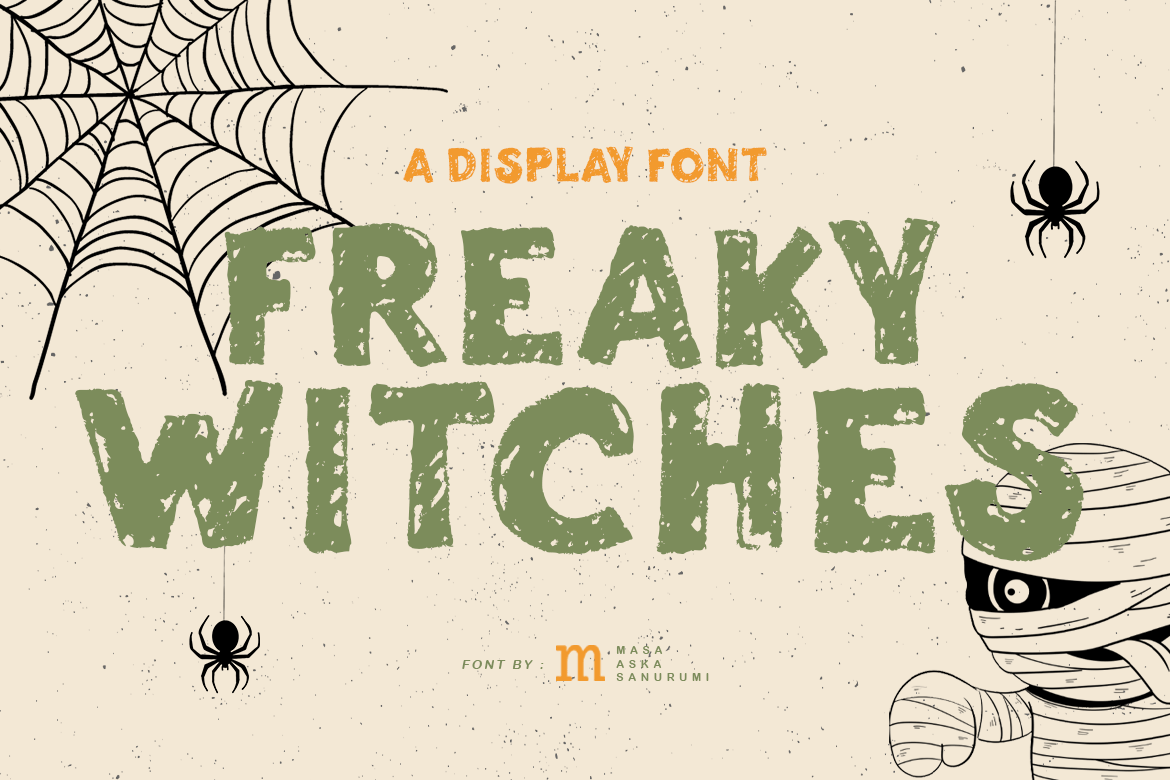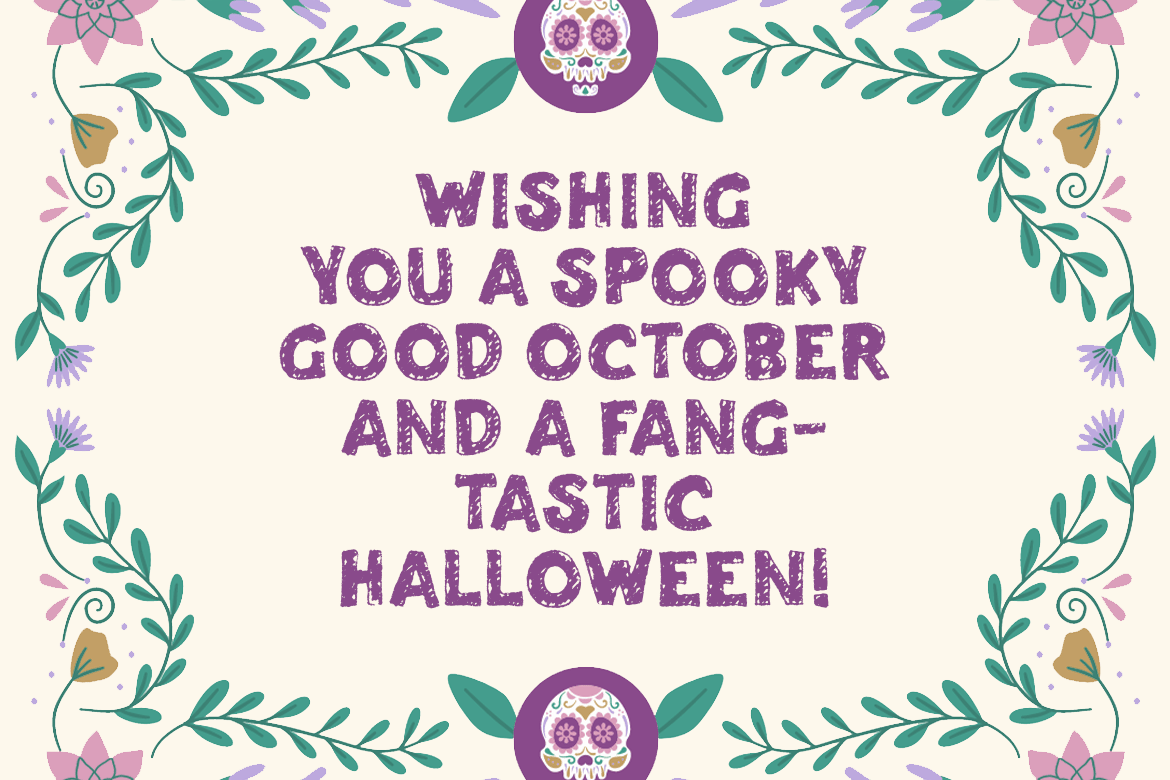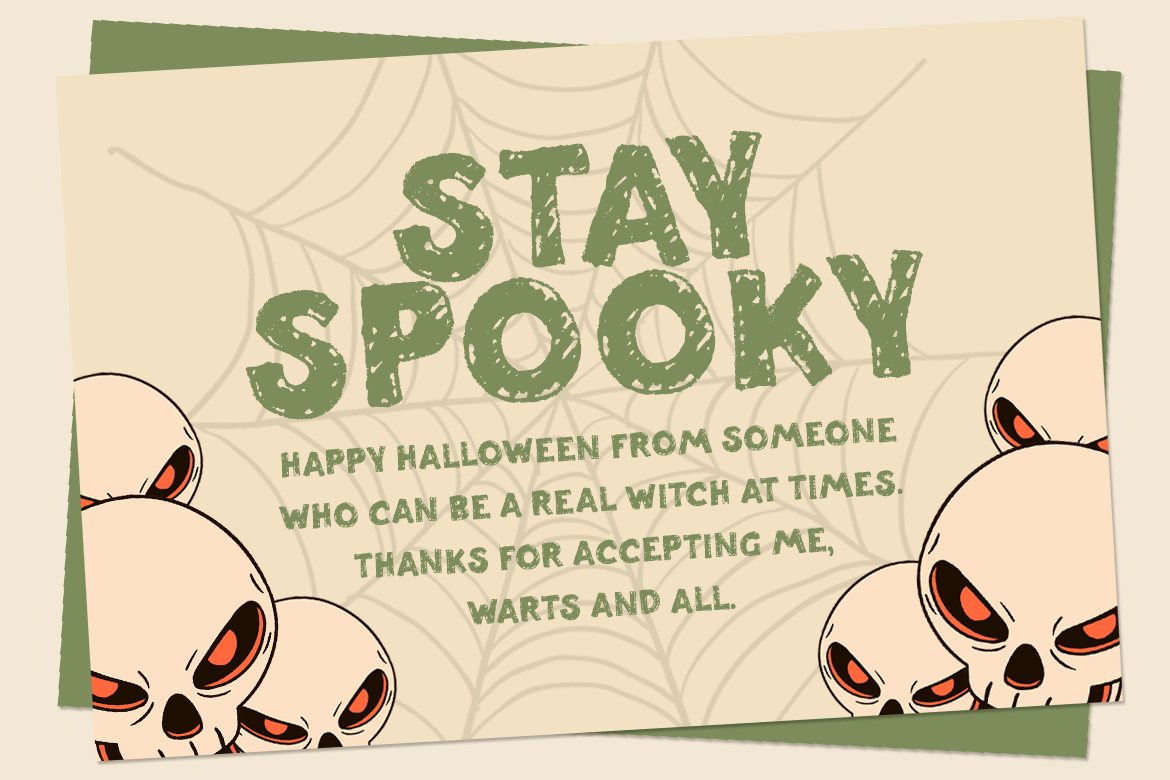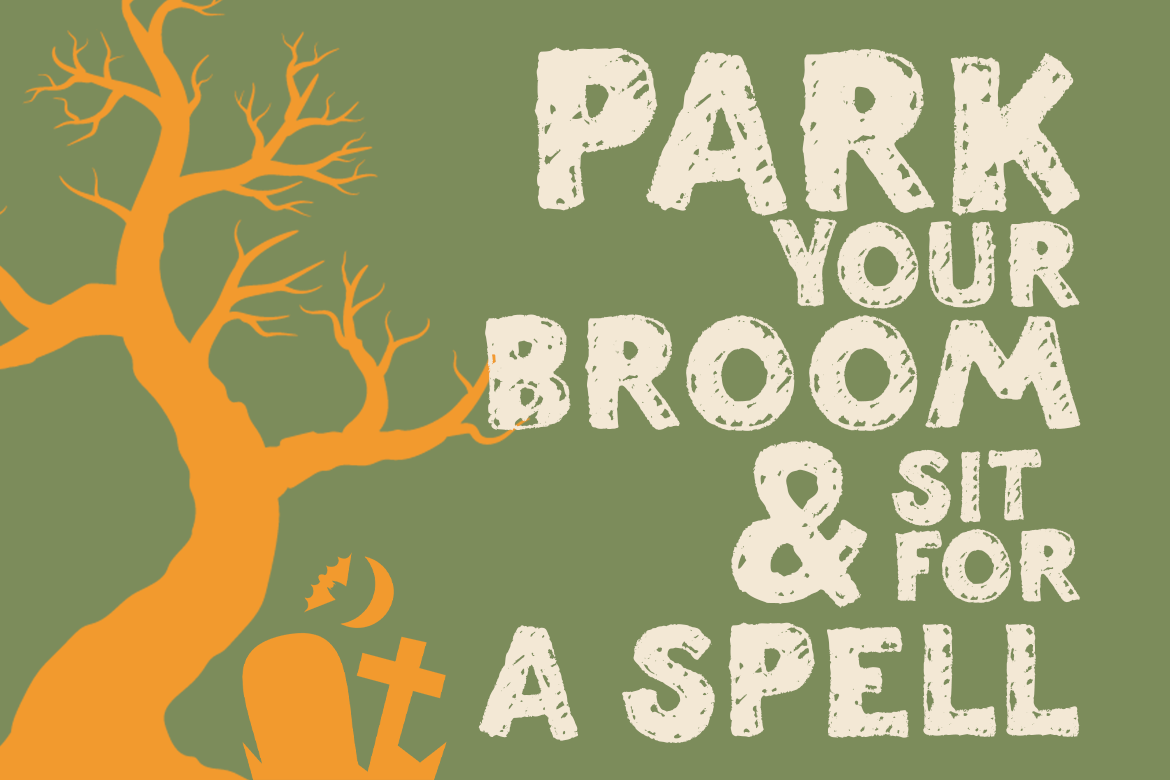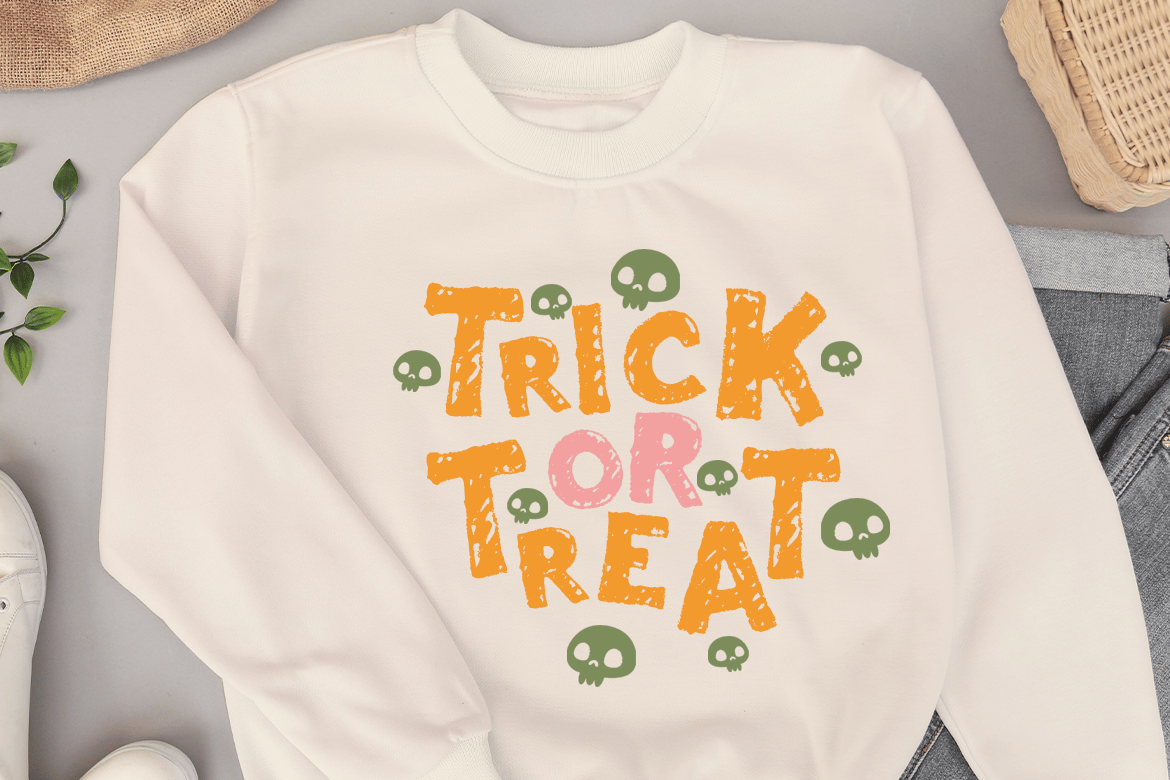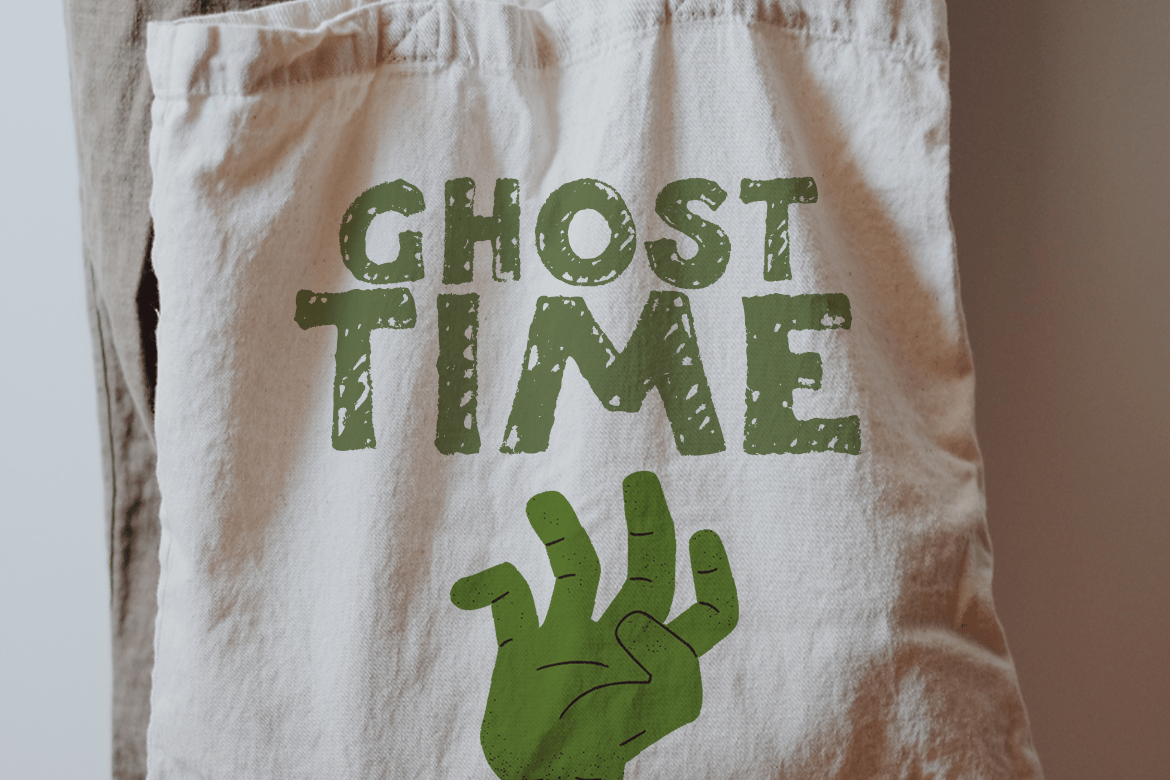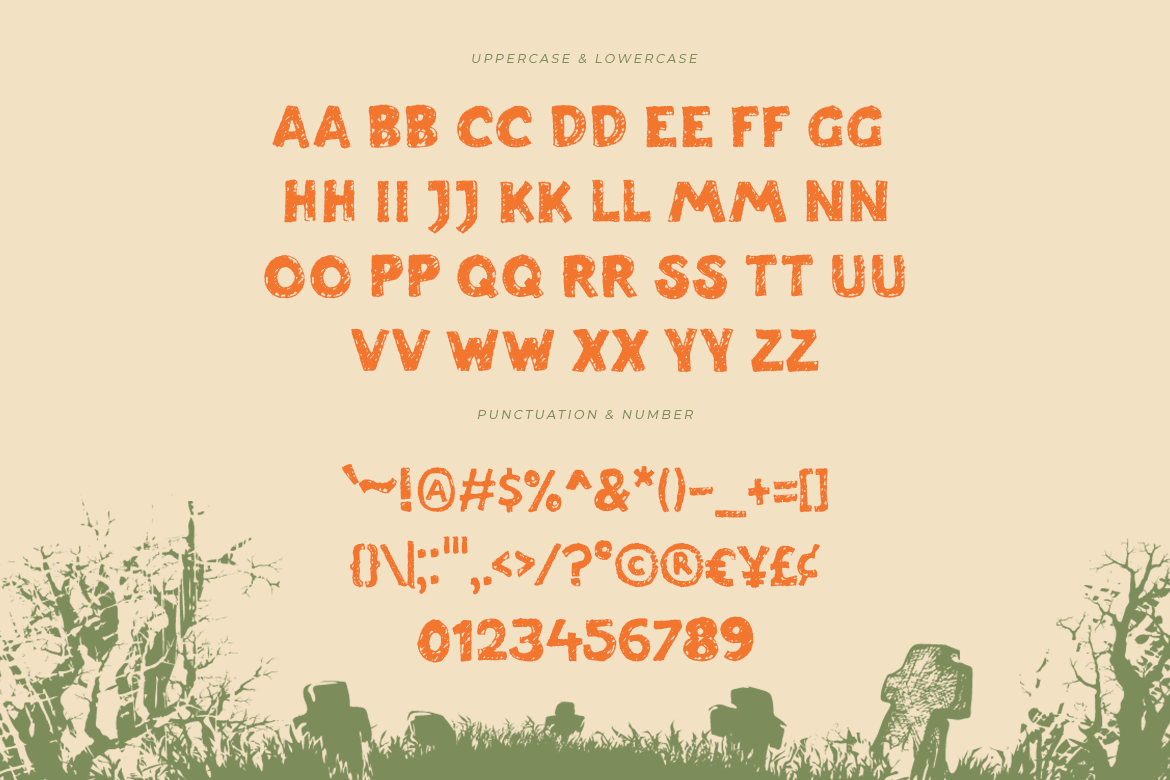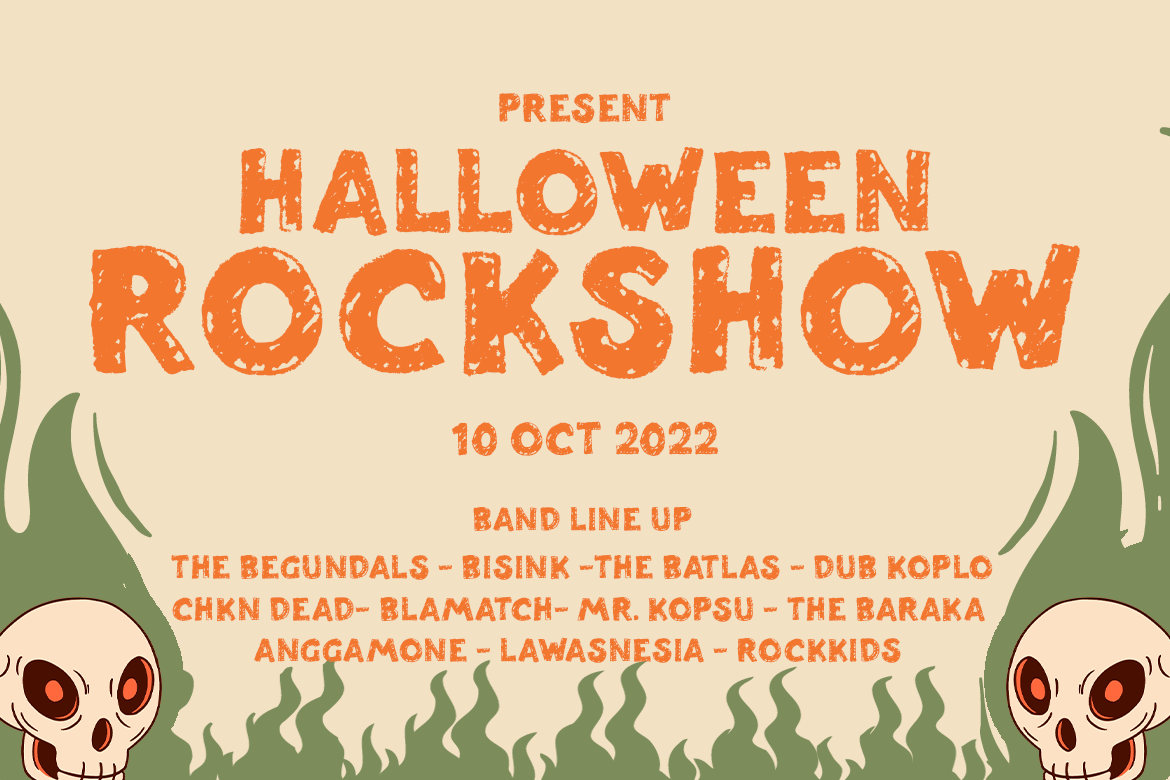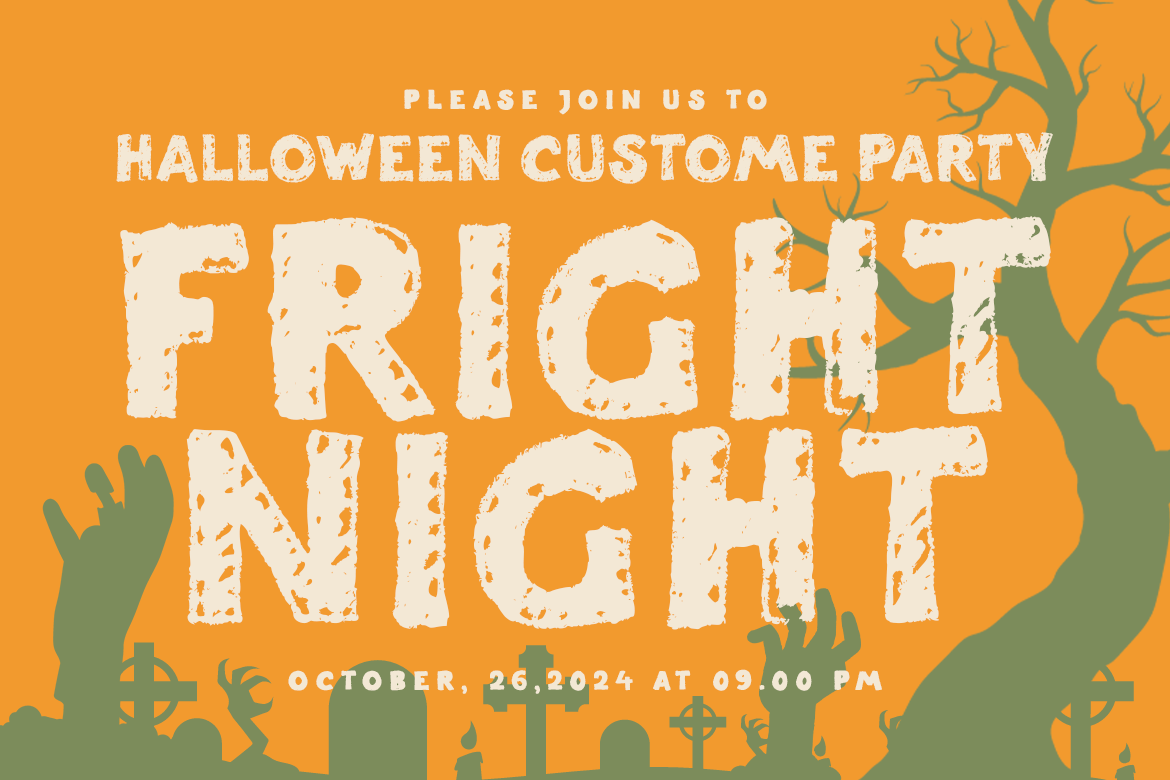
Freaky Witches | A Display Font
Introducing, Freaky Witches is a halloween display font suitable for your design project needs, such as; halloween theme, social media posts, your quotes, overlays on images, posters, print needs, website banners, and more.
- A set of uppercase and lowercase glyphs
- Number, symbol, and punctuation